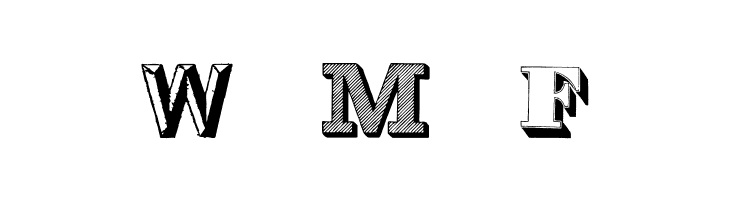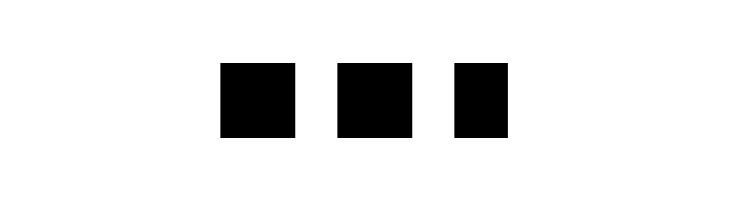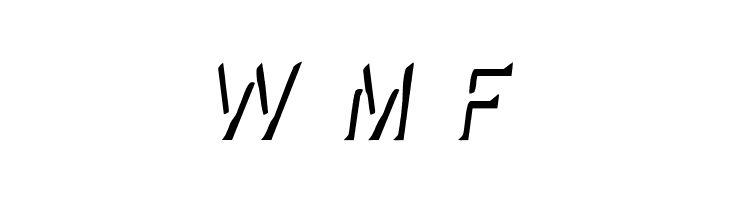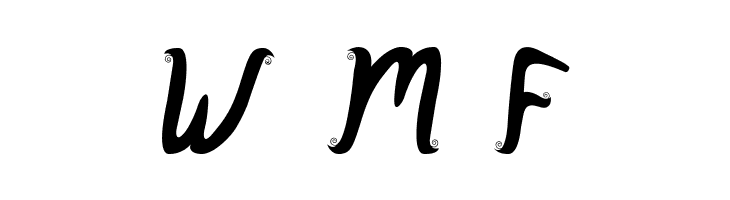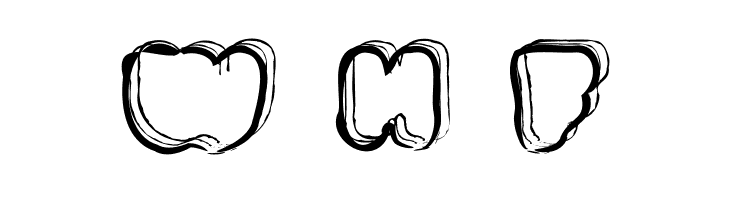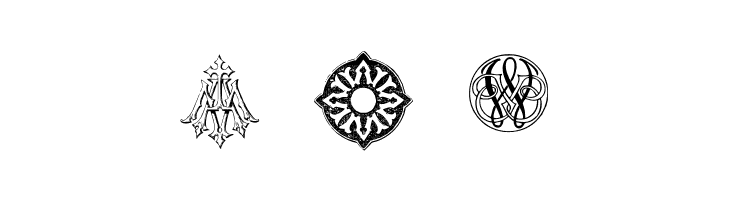
A fluid and expressive calligraphic font inspired by traditional Japanese brushwork.
A bold, geometric font with characters in solid black squares, ideal for digital or retro themes.
A bold, geometric font with sharp angles and a modern edge.
A playful, rounded font with bold, bubble-like characters and thick outlines.
A bold, distressed decorative font with a grunge aesthetic.
A digital dot matrix font with a retro, pixelated style.
A bold, stencil-style font with sharp angles and high contrast, ideal for impactful designs.
A bold, modern sans-serif font with geometric structure and uniform width.
A bold, italic font with a modern and dynamic style.
A bold, angular font with a modern, urban style.
A playful, bold font with rounded, bubble-like characters.
A playful, bubble-like font with a hand-drawn appearance.
A bold, high-contrast serif font with elegant and dramatic strokes.
A playful, handwritten font with a quirky and dynamic style.
Intricate and ornate monograms with a vintage, decorative style.
An elegant, high-contrast script font with decorative swashes and flourishes.
A casual, friendly handwritten font with smooth, rounded strokes.
Ornamental flourishes and border elements with varying intricacy and weight.
A playful, hand-drawn font with rounded edges and a whimsical style.
A decorative font with intricate swirl embellishments on each character.
A playful, bold font with rounded, irregular characters for a whimsical feel.
A playful, artistic script font with flowing, interconnected letters and whimsical swirls.
A whimsical, cartoon-like font with characters integrated into playful figures.